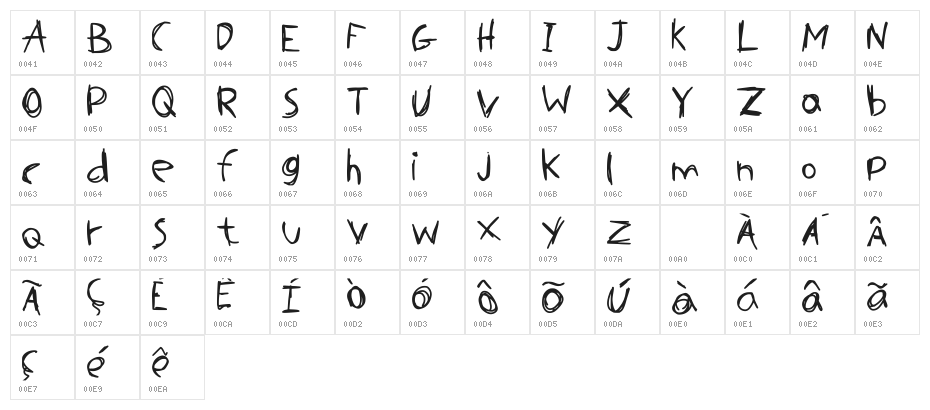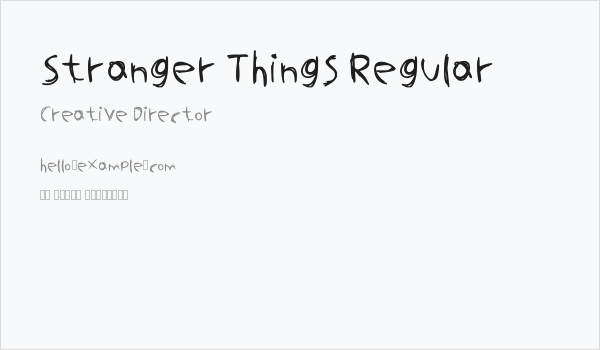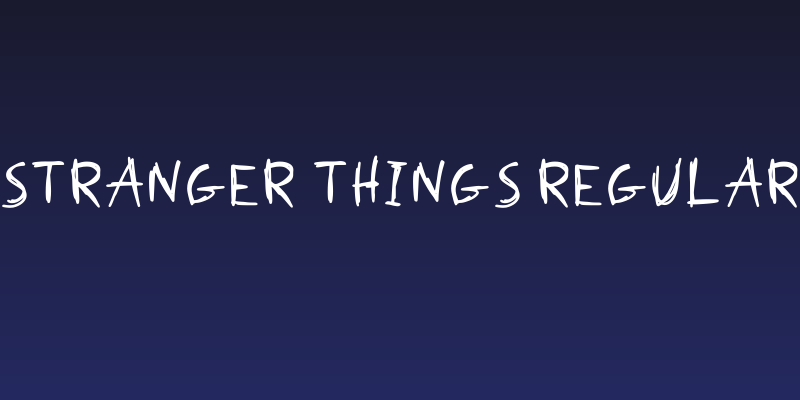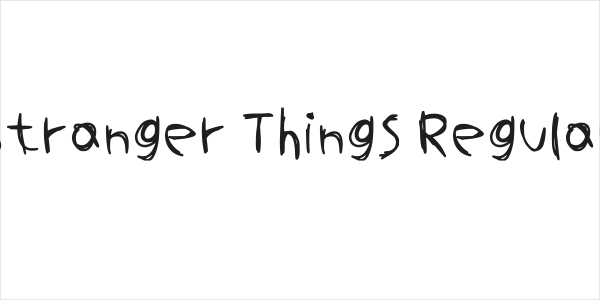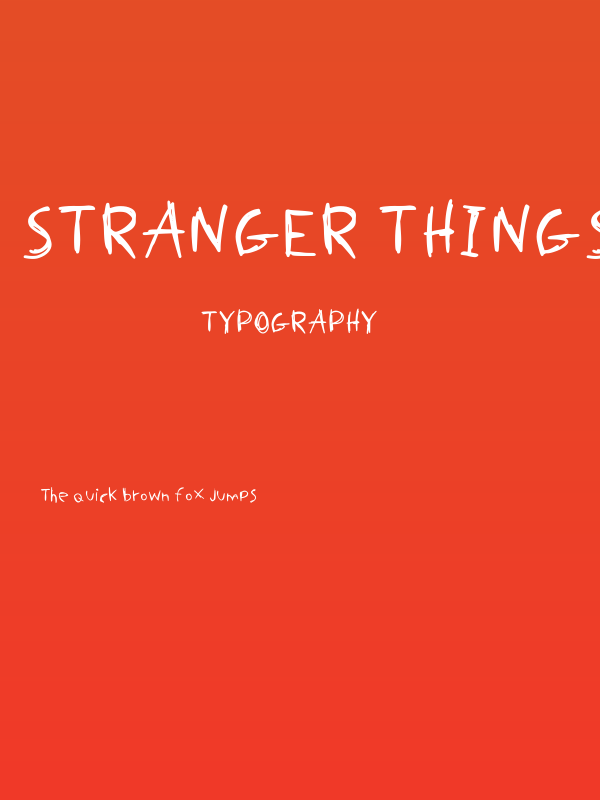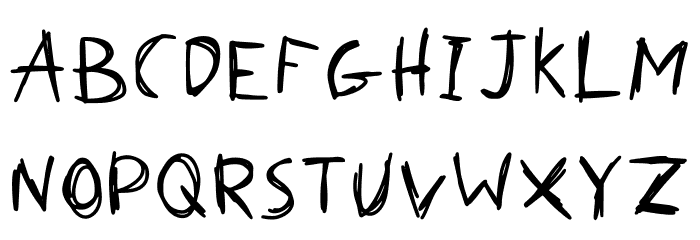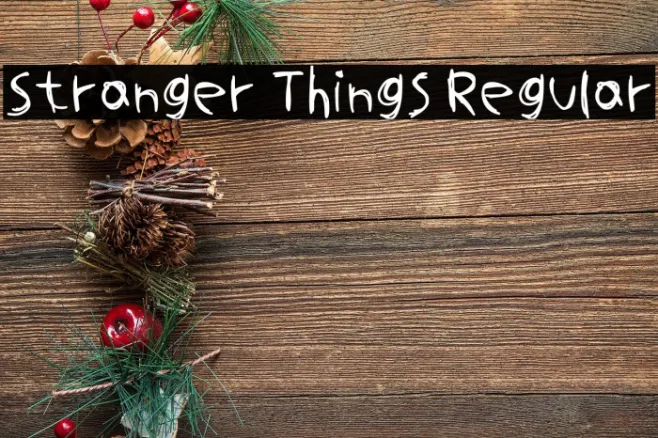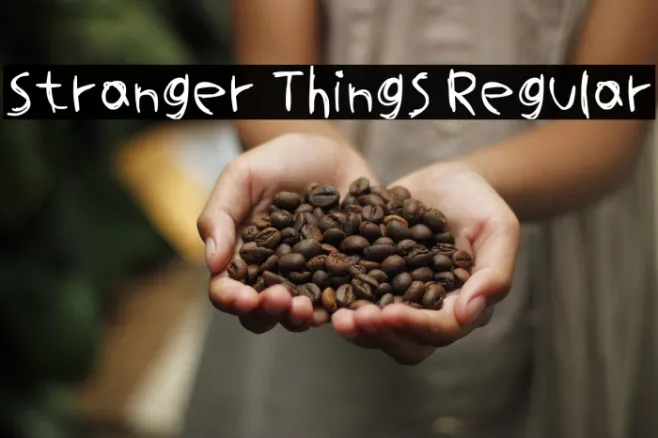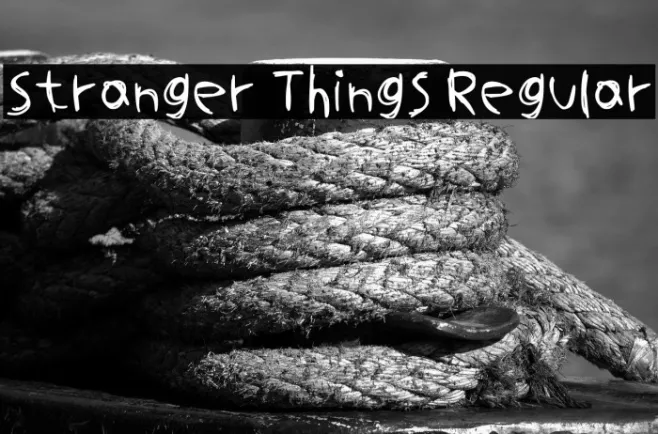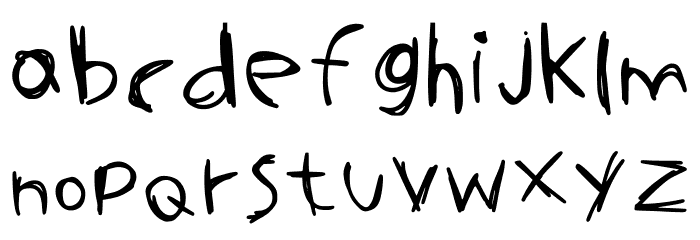
Stranger Things Regular Font
Stranger Things Regular Description
This font features a bold, hand-drawn style with a slightly irregular and playful appearance. The uppercase and lowercase letters exhibit a dynamic and energetic feel, with strokes that vary in thickness, giving it a lively and spontaneous look. The characters are slightly tilted and have a rough, sketch-like quality, reminiscent of handwritten notes or doodles. This font captures a sense of movement and creativity, making it stand out with its unique and artistic flair.